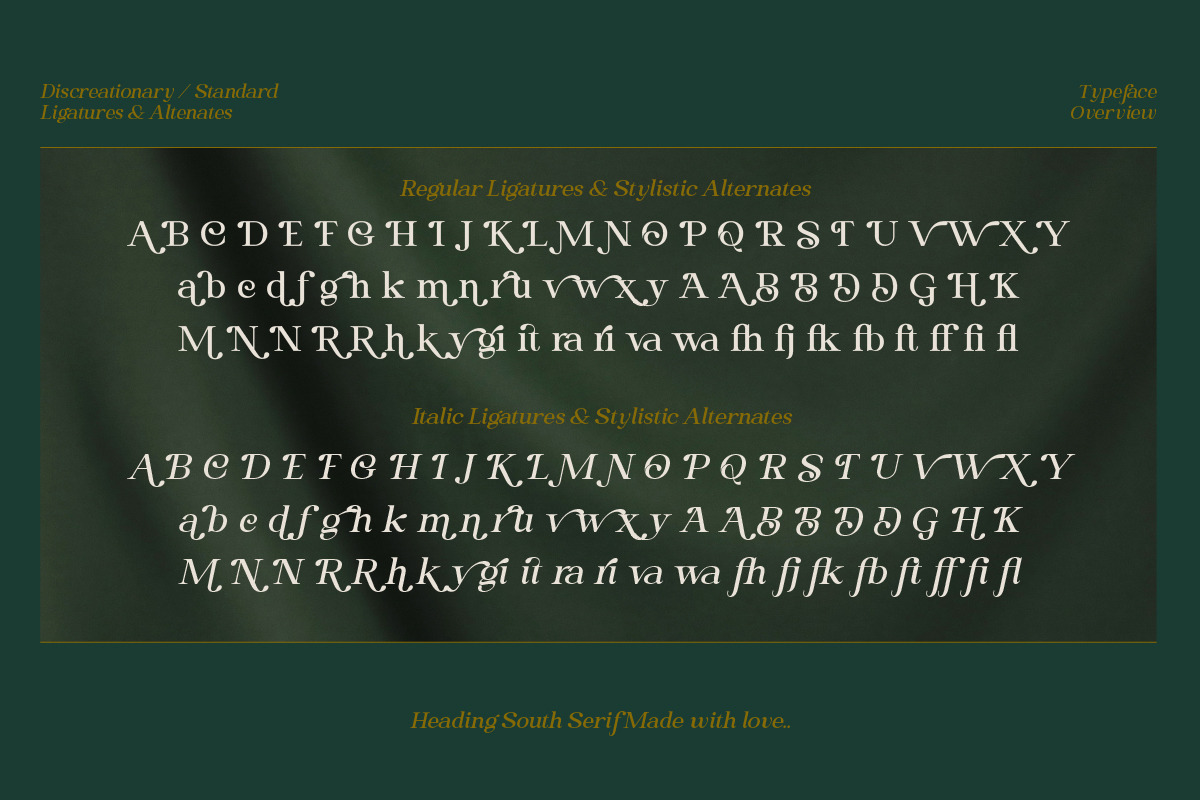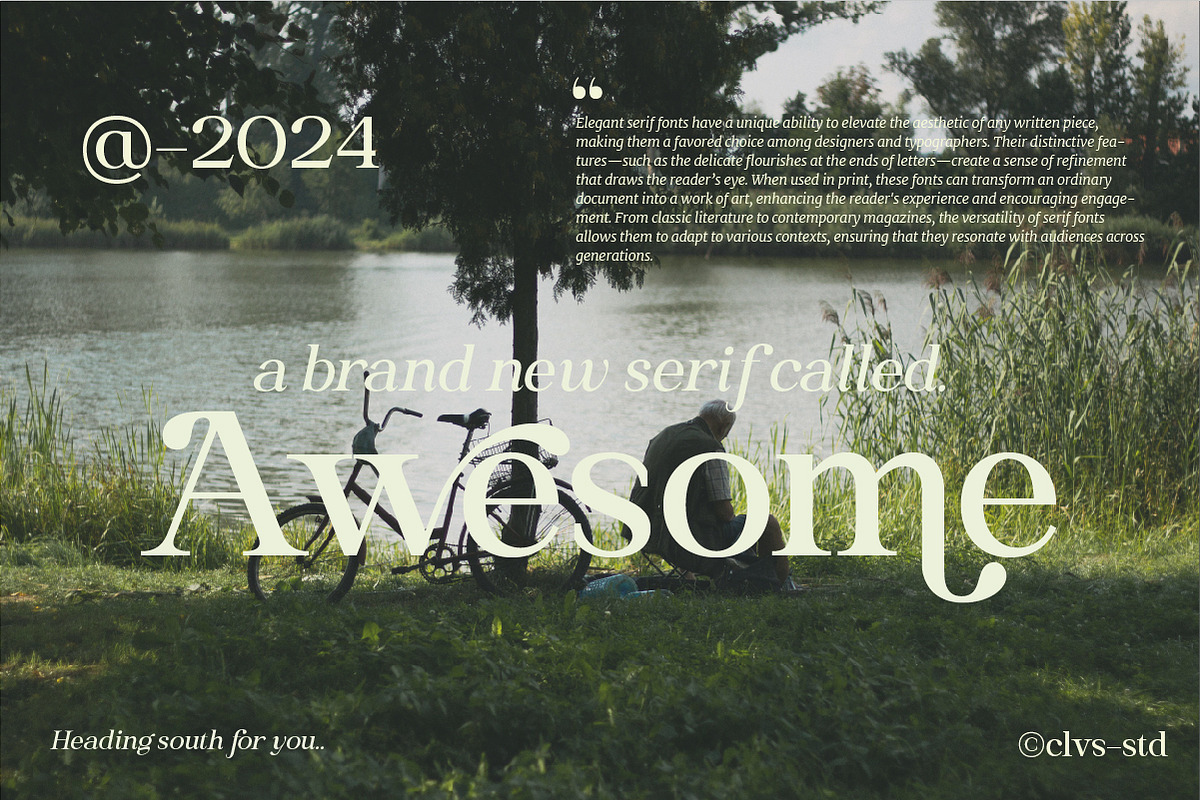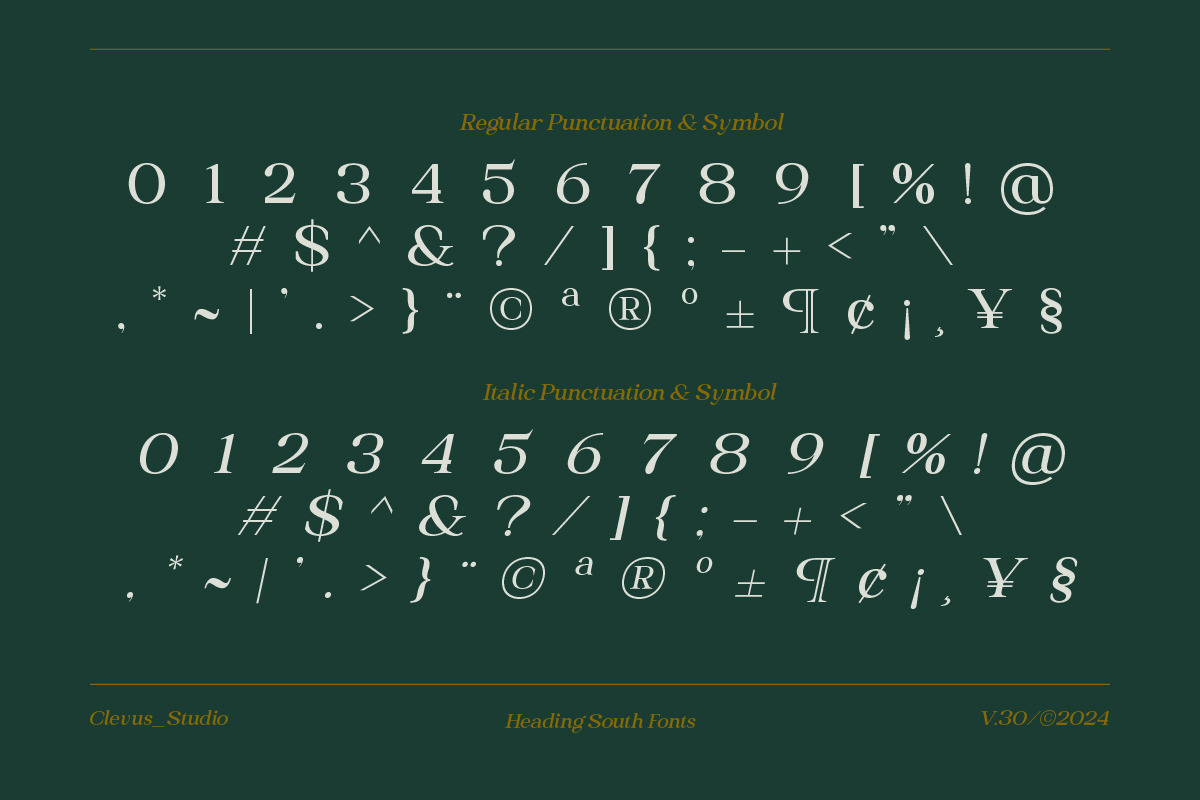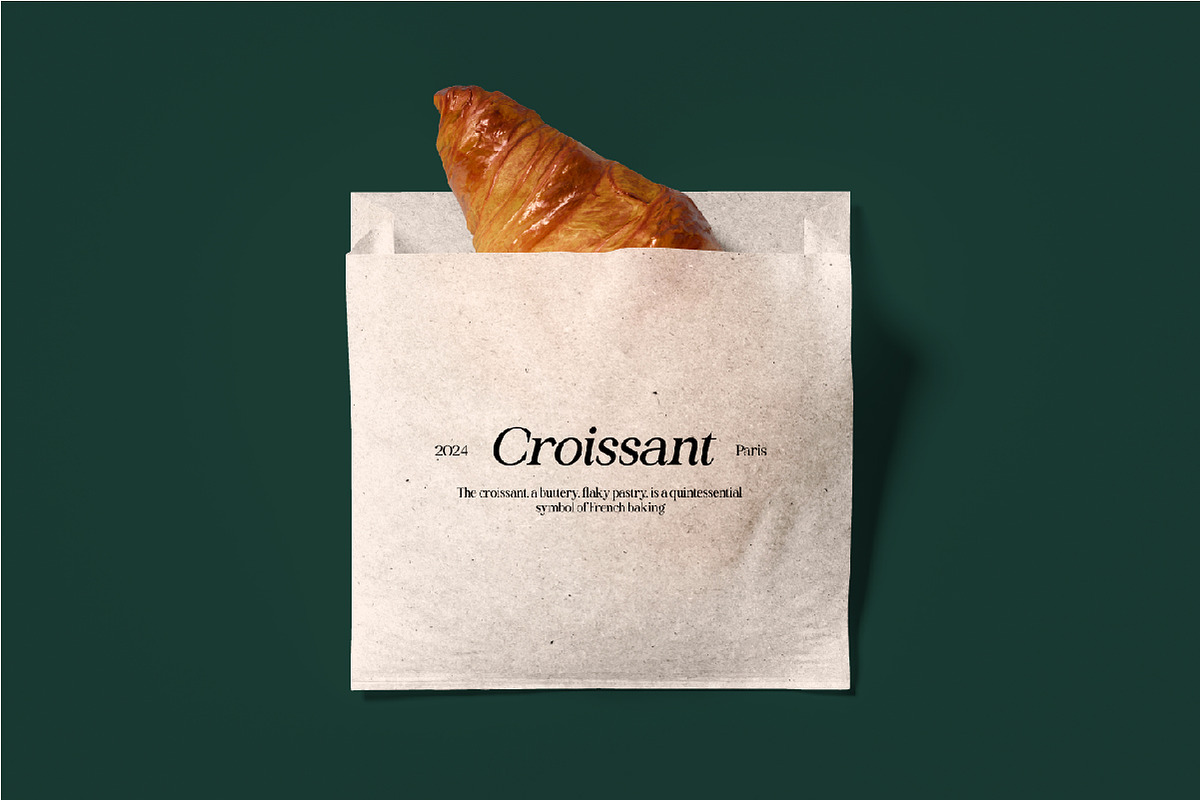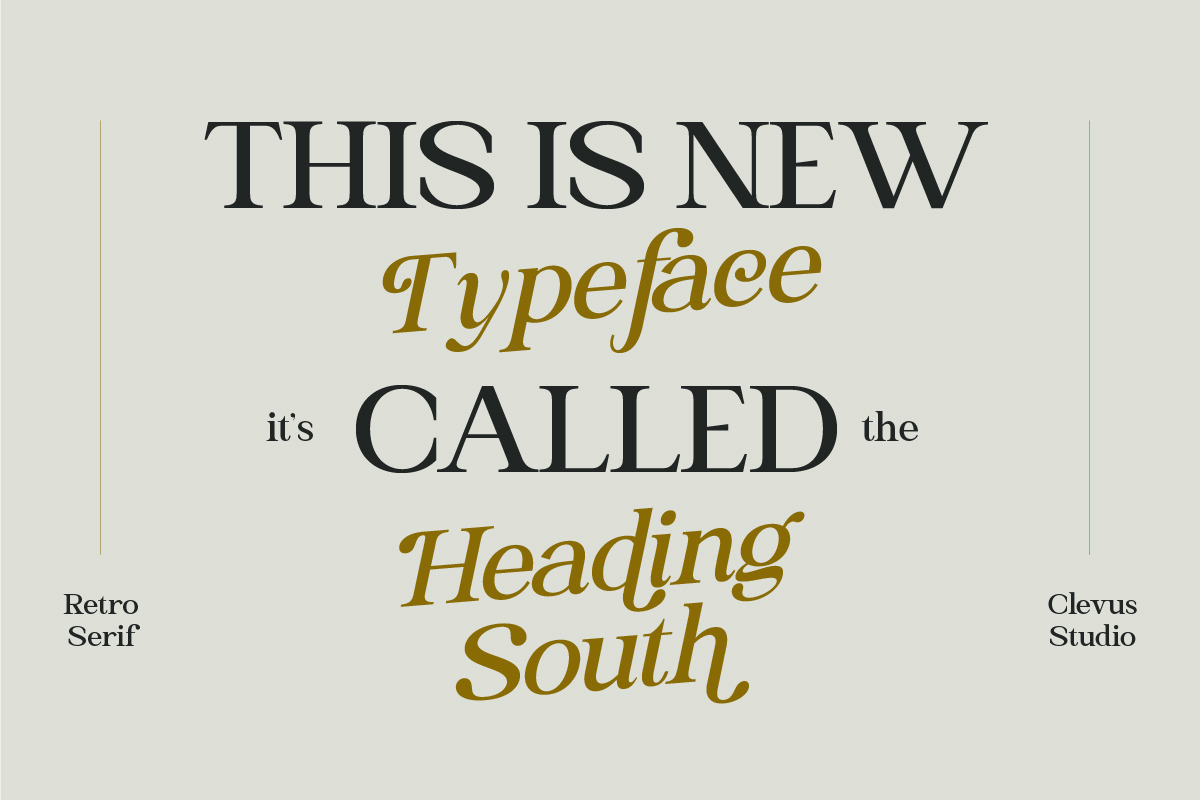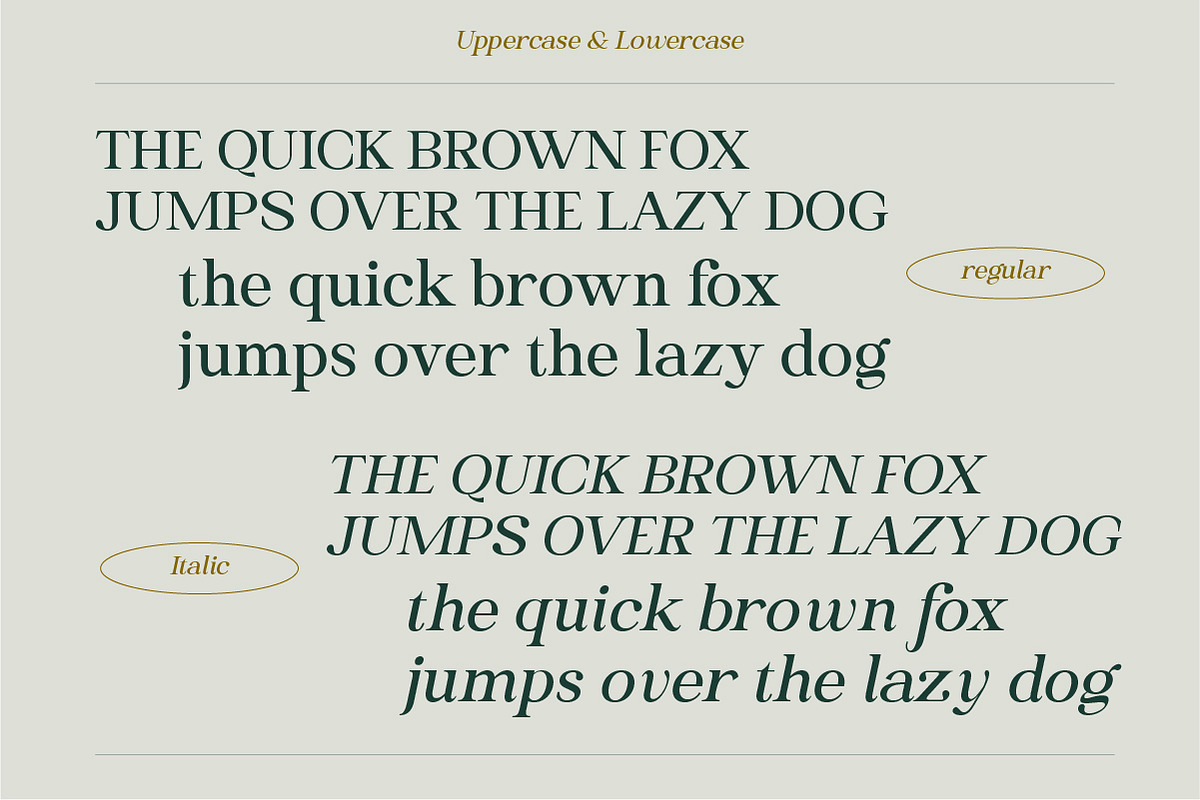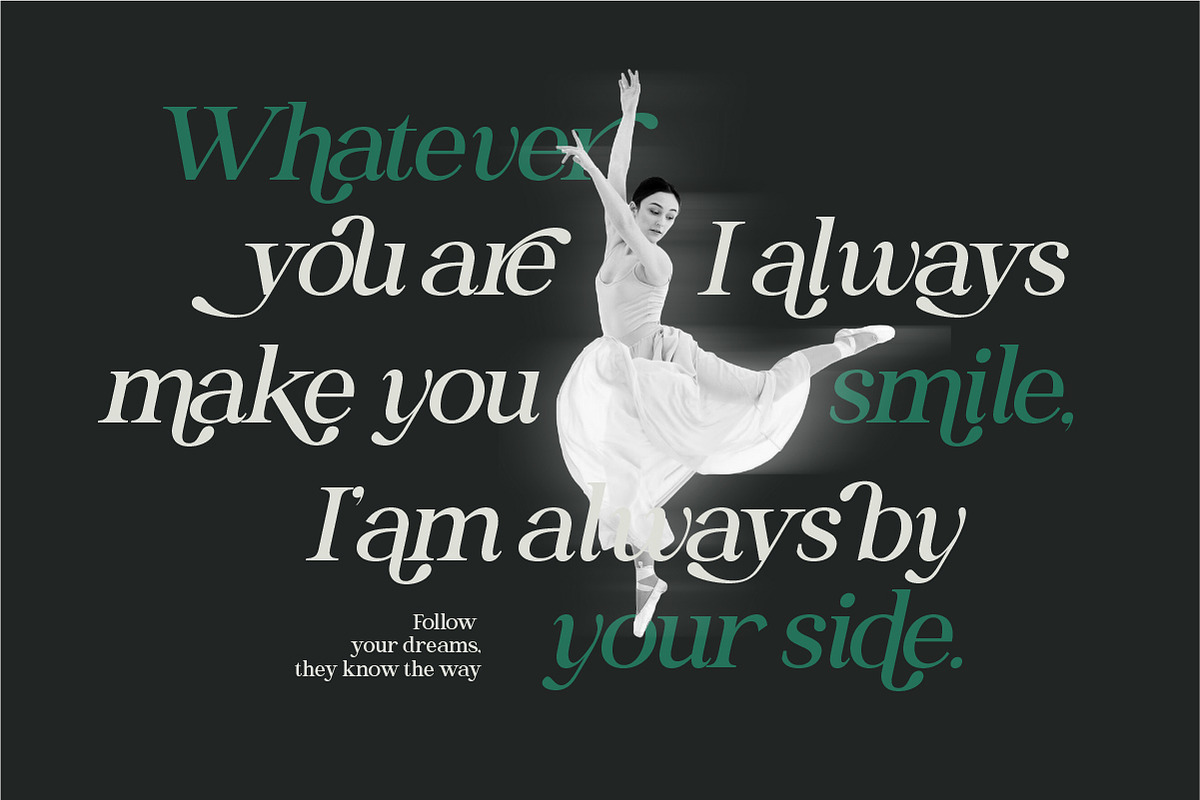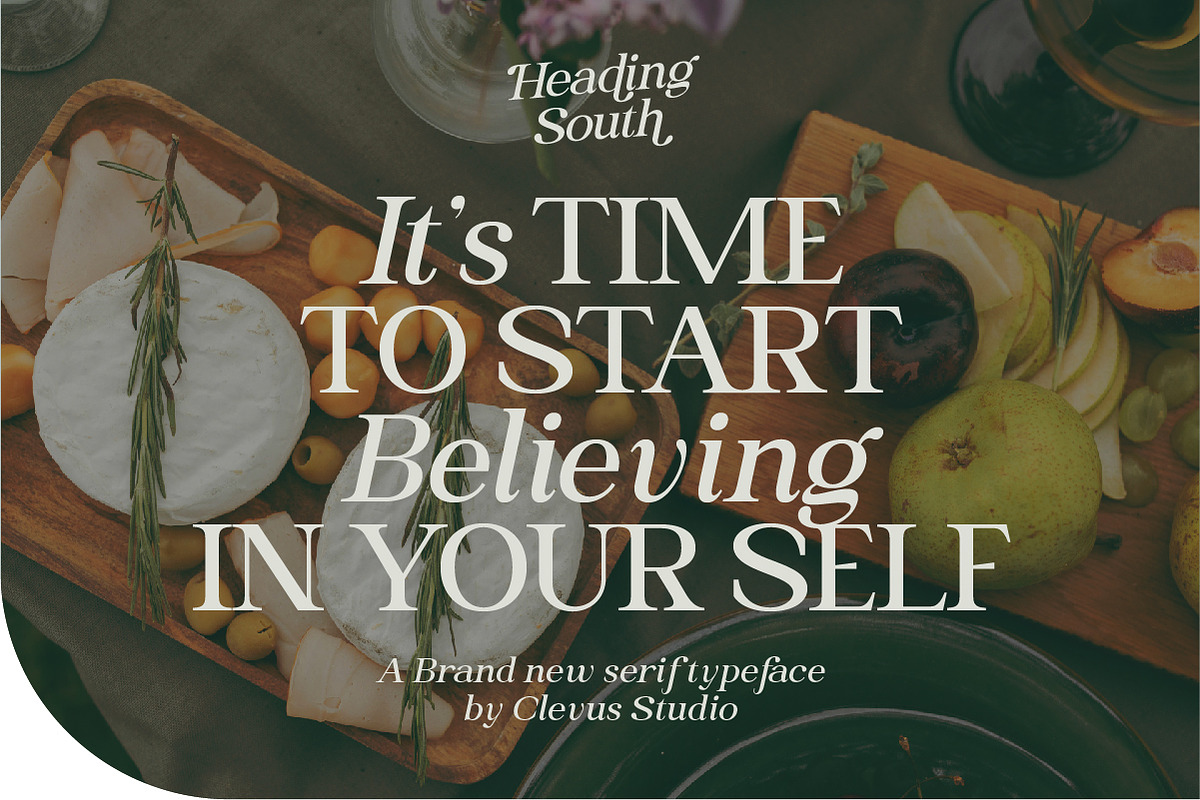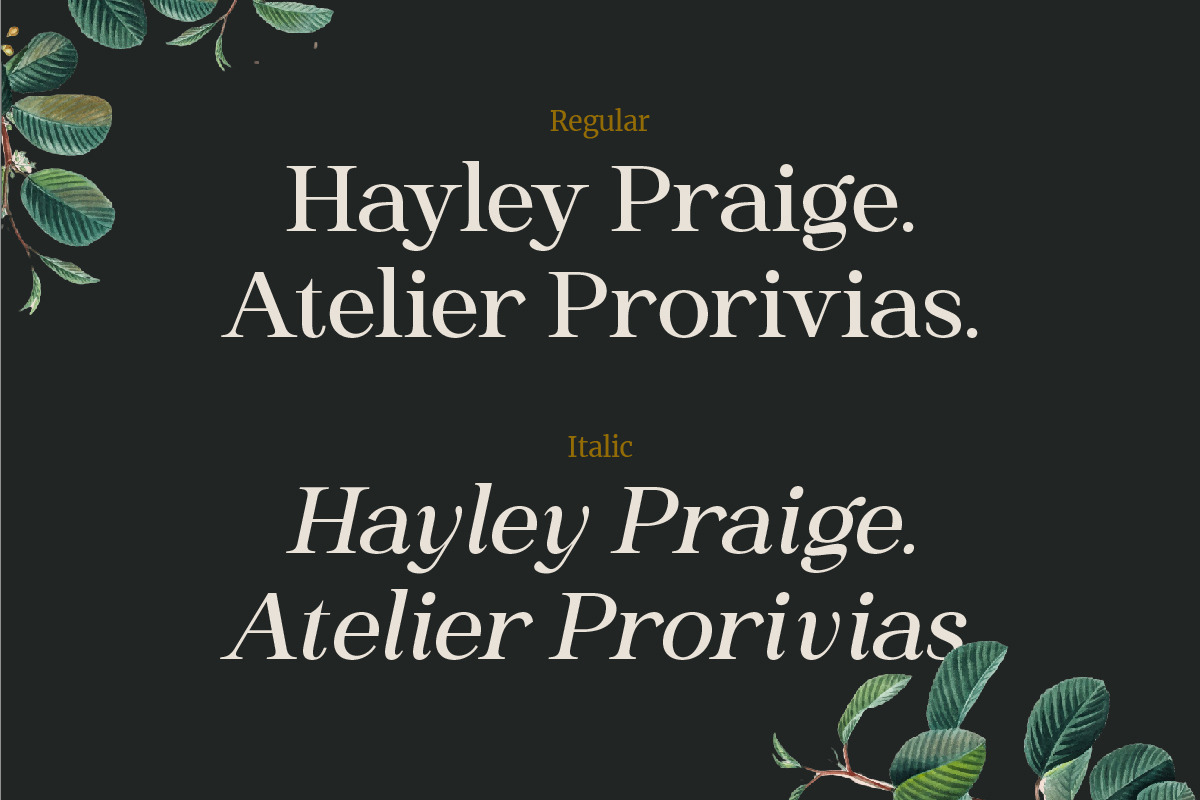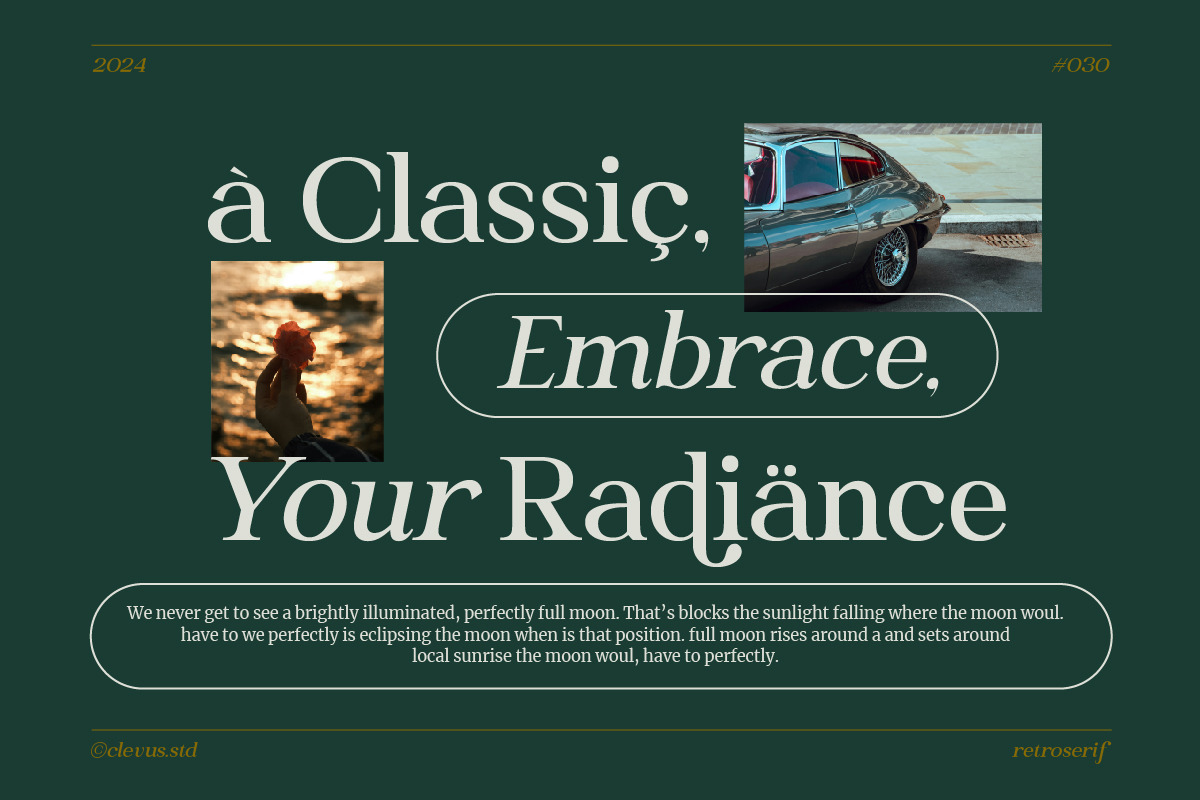
Heading South | Retro serif
Proudly present Heading South a brand new typeface with Regular & Italic
Heading South comes with a wide range of alternates and ligatures. Retro-inspired, elegant serif font that brings a touch of nostalgia to modern design. Available in both Regular and Italic styles, it’s perfect for creating timeless logos, editorial layouts, posters, and more. Its graceful curves and classic letterforms evoke a sense of sophistication and charm, making it ideal for projects that require a refined yet approachable look. Heading South offering endless possibilities for customization and adding a distinctive flair to any creative work.
- Lettres, numbers, symbols, and punctuation
- alternates and ligatures